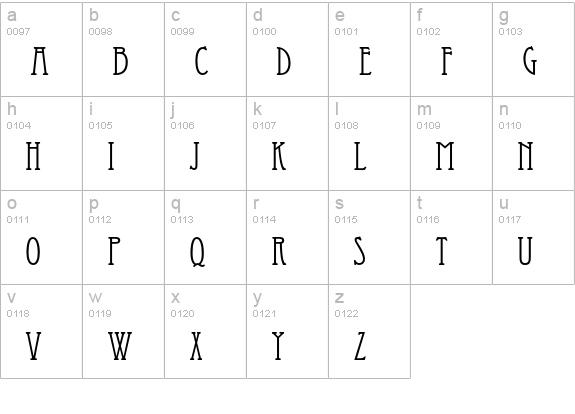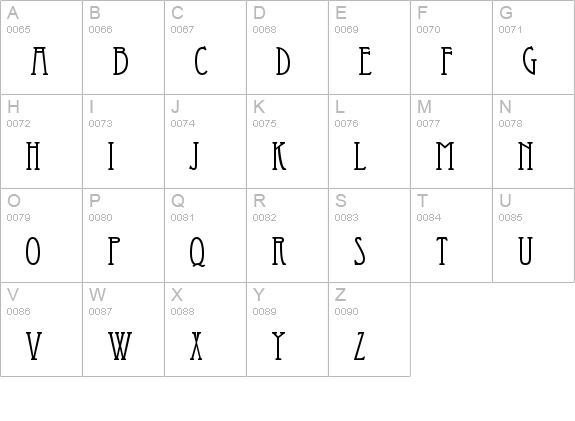
The Eccentric Std font is a truly one-of-a-kind typeface that exudes creativity and quirkiness. With its eclectic mix of sharp angles and playful curves, this font is sure to catch the eye and make a bold statement. It is perfect for anyone looking to add a touch of eccentricity to their designs. What makes the Eccentric Std font even more appealing is that it is available for free download at FontsMarket.com. This means that you can easily access this unique font and start using it in your projects without any cost. Whether you are a designer, artist, or just someone who appreciates the beauty of typography, the Eccentric Std font is a must-have addition to your collection. With its versatility and distinct personality, the Eccentric Std font can be used for a wide range of design applications. From branding and logo design to posters and social media graphics, this font will surely make your creations stand out from the crowd. Its unconventional design elements and bold character set ensure that your message will be conveyed with impact and originality. So, why wait? Embrace your eccentric side and start using the Eccentric Std font today. Download it for free at FontsMarket.com and let your imagination run wild. Whether you are working on a personal project or a professional endeavor, this font is bound to add a touch of eccentricity and creativity to your designs. Don't miss out on this opportunity to enhance your typographic repertoire with a font that is not only visually captivating but also freely available to download.